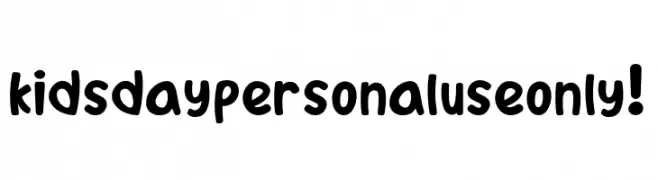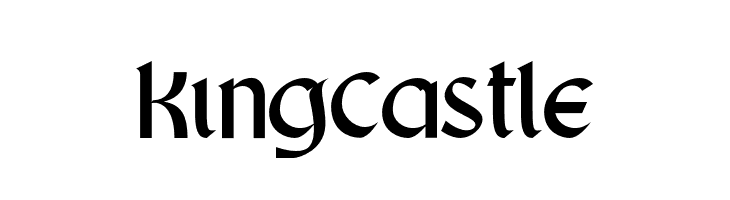
A dynamic, expressive handwritten font with fluid strokes and varying thickness.
A dynamic handwritten font with fluid, energetic strokes.
A lively, cursive script font with flowing, decorative letterforms.
An elegant script font with flowing, cursive strokes and decorative flourishes.
A bold, expressive handwritten font with dynamic strokes and artistic flair.
A bold, expressive script font with fluid, connected strokes.
A bold, expressive brush script with a dynamic, hand-painted style.
A dynamic, cursive script font with bold, sweeping strokes and elegant flourishes.
A bold, expressive script font with dynamic brush strokes.
A decorative, handwritten font with playful uppercase and cursive lowercase letters.
A lively and expressive handwritten font with fluid strokes.
A delicate and flowing script font with elegant, thin strokes.
A dynamic, cursive script font with elegant curves and decorative flourishes.
A bold, expressive script font with flowing, cursive letters.
A whimsical and decorative font with playful, curly embellishments.
A flowing, cursive script font with interconnected letters and a personal touch.
A bold, geometric font with a modern, industrial style.
A playful, hand-drawn font with bold, outlined letters and a whimsical style.
A playful, hand-drawn font with bold, uneven strokes and a casual style.
A lively, cursive font with a handwritten, dynamic style.
A bold, expressive brush-style font with an artistic, hand-painted look.
A modern, clean sans-serif font with uniform stroke width and versatile style.
A bold, modern sans-serif font with thick, uniform strokes and rounded edges.
A modern, clean sans-serif font with uniform stroke weight and balanced proportions.
A bold, blocky font with high contrast and wide spacing, perfect for impactful designs.
A bold, decorative font with intricate patterns and a playful style.
A bold, brushstroke font with a dynamic, hand-painted appearance.
A bold, brush-style font with dynamic, hand-drawn strokes.
A playful, bold font with rounded, whimsical characters.